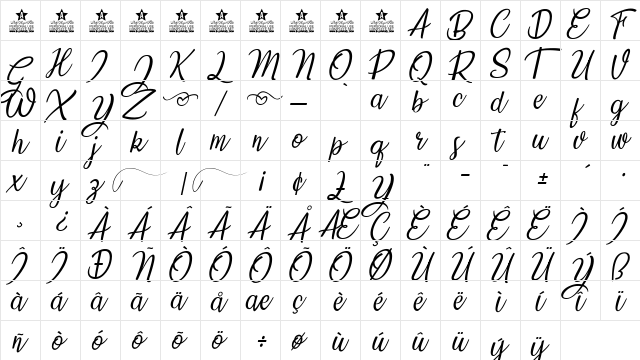
Countryside two Regular
| Designer | Billy Argel |
Design Context for Countryside two Typeface
Countryside two is a composed and adaptable typeface that performs quietly and consistently across a wide range of design contexts.